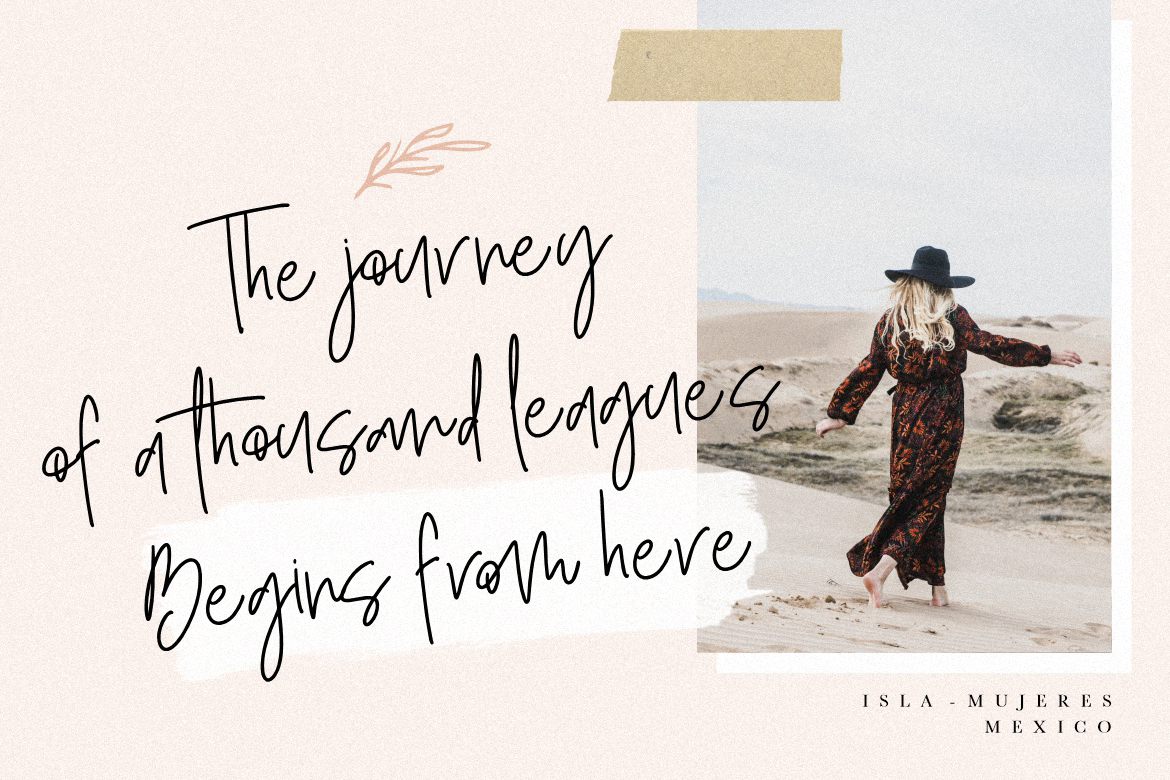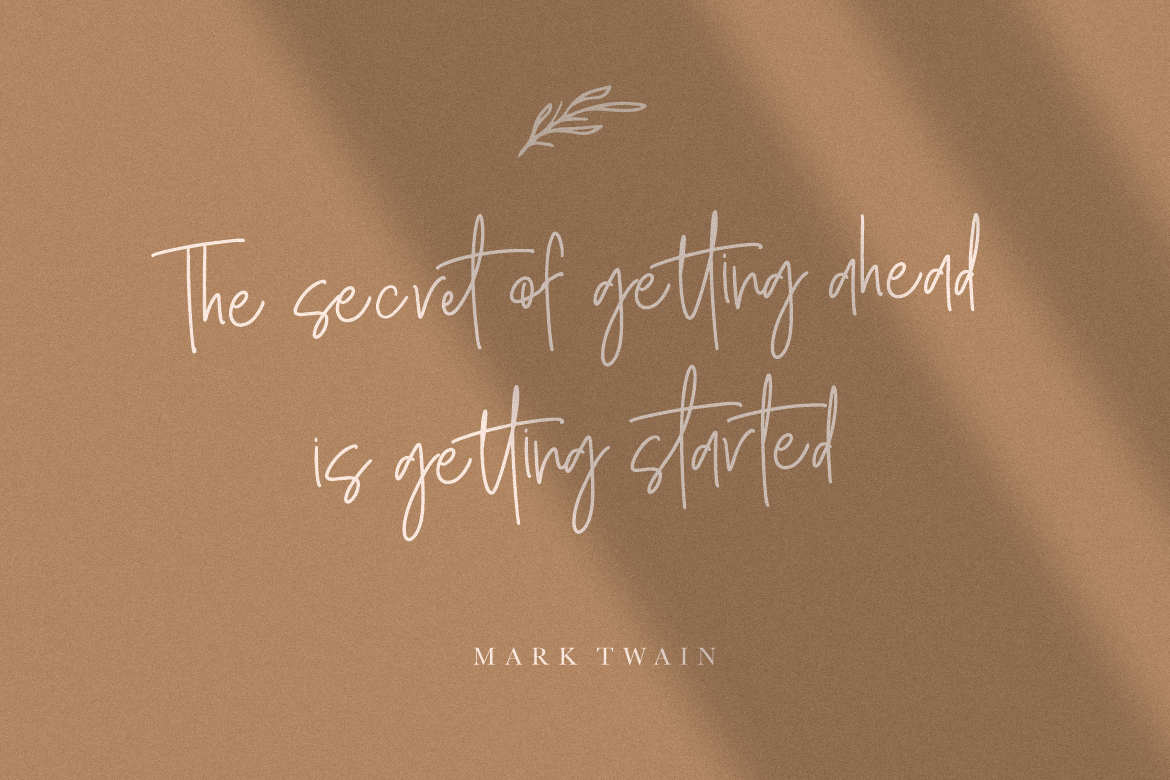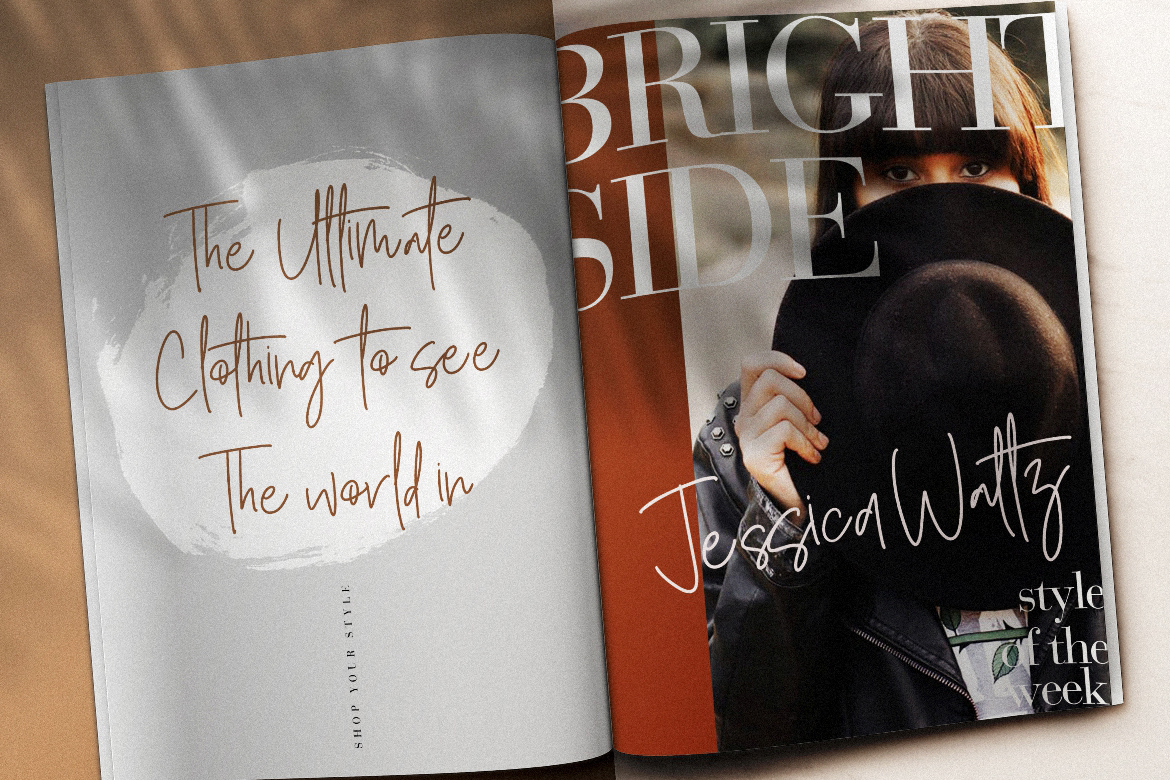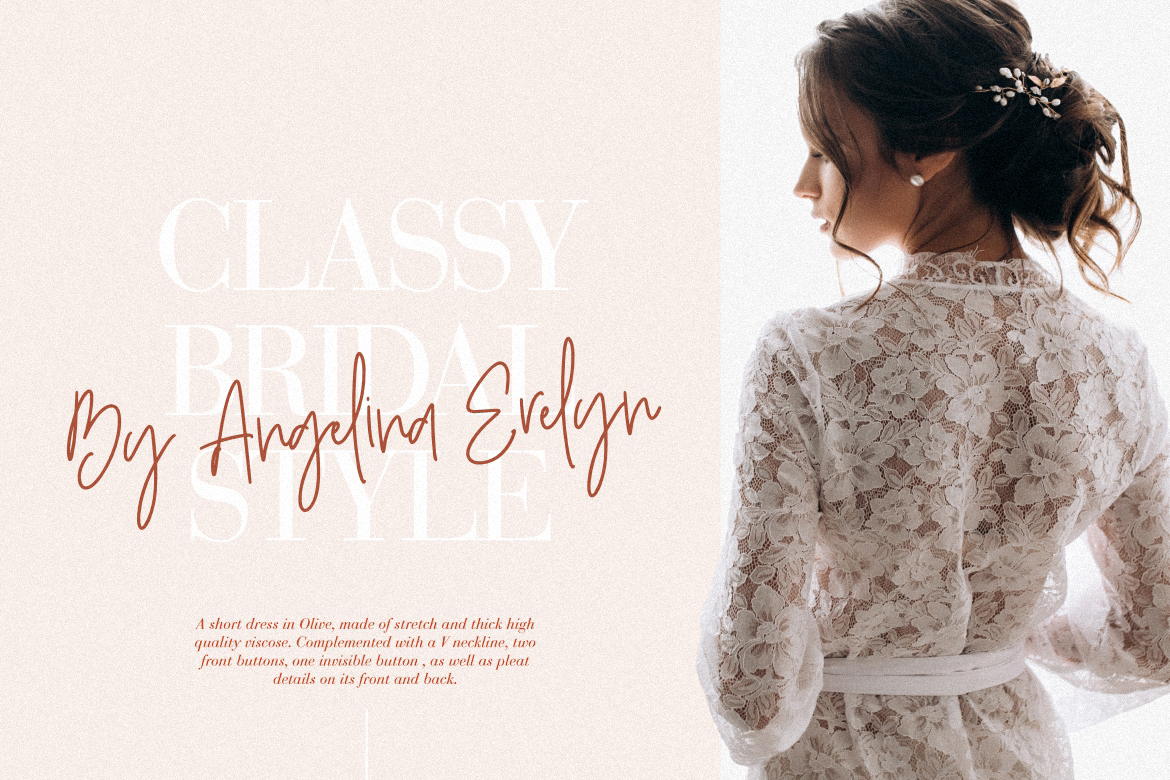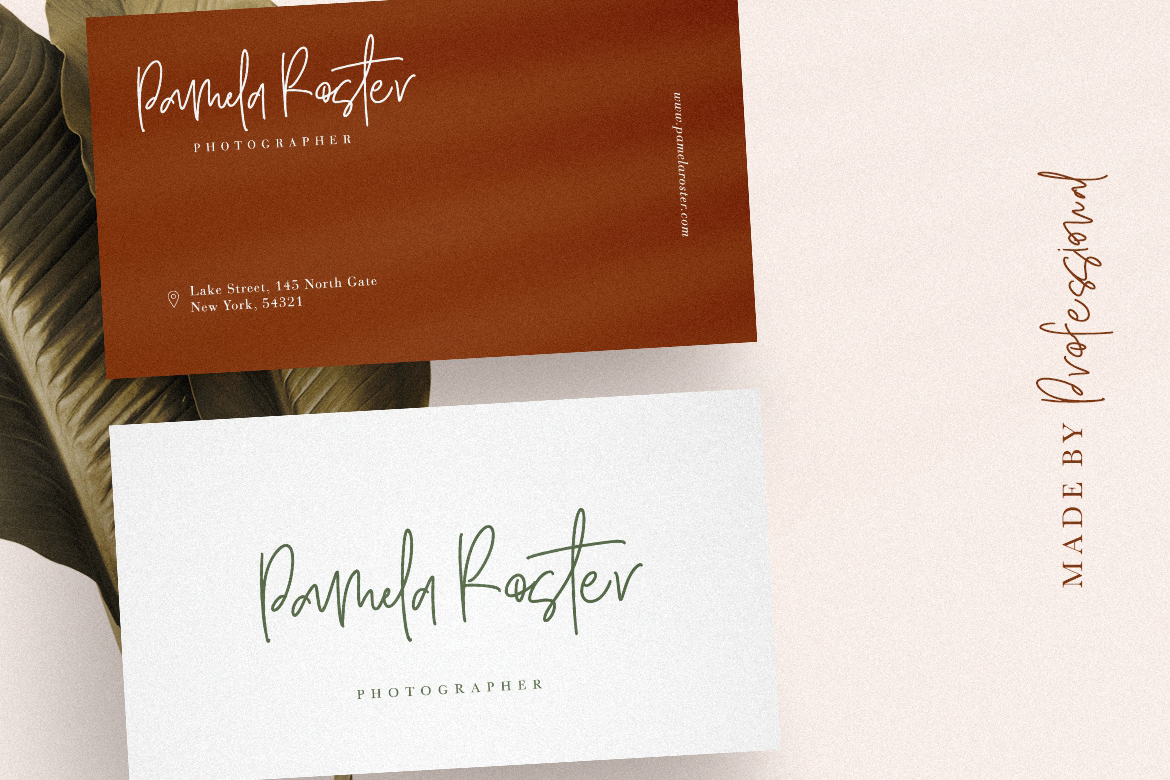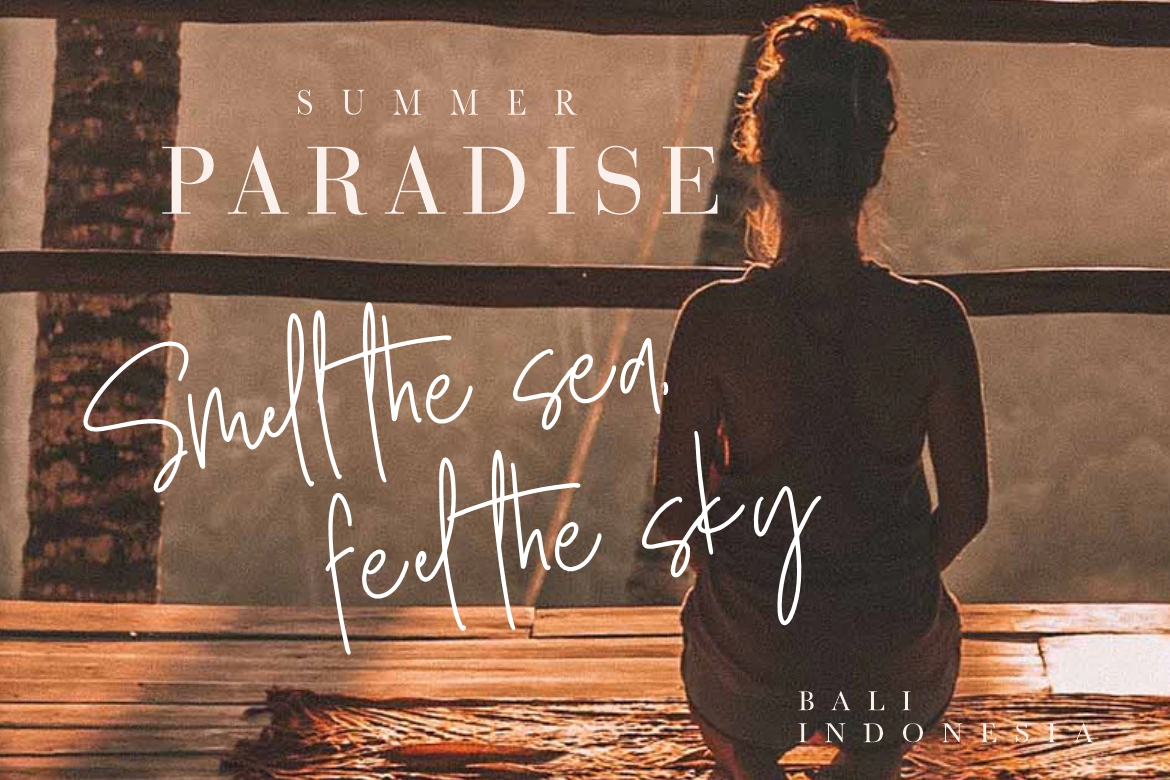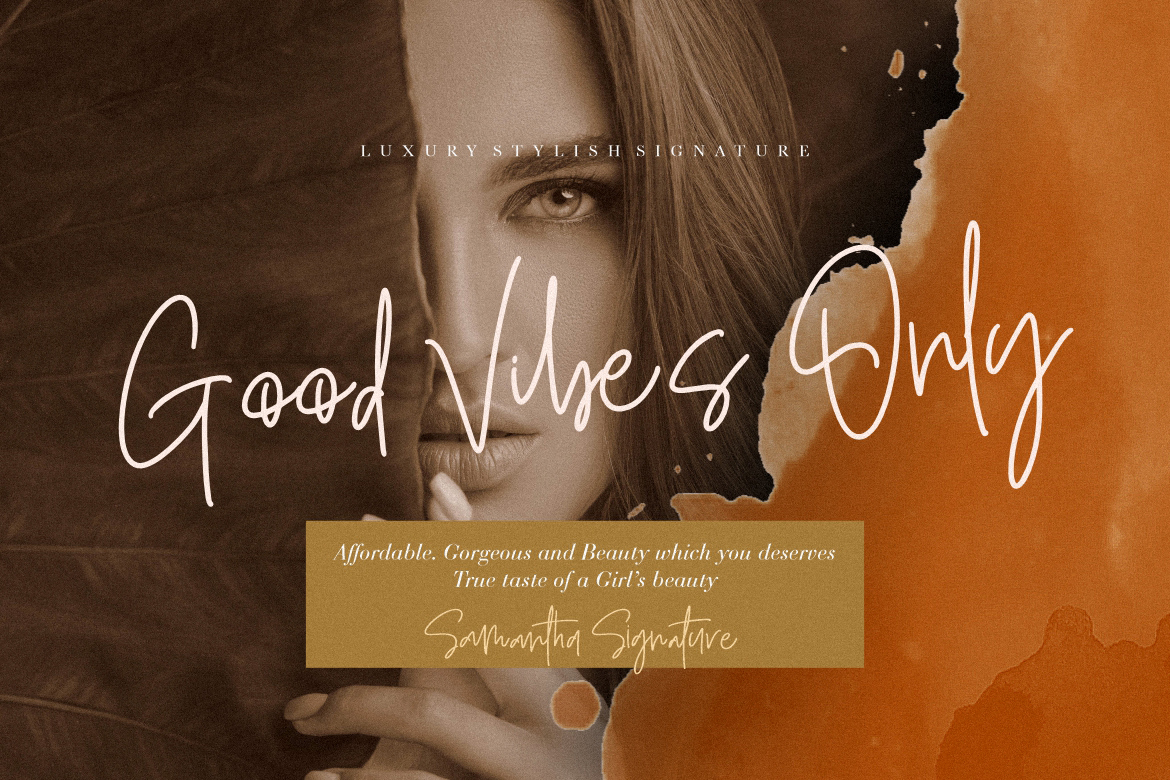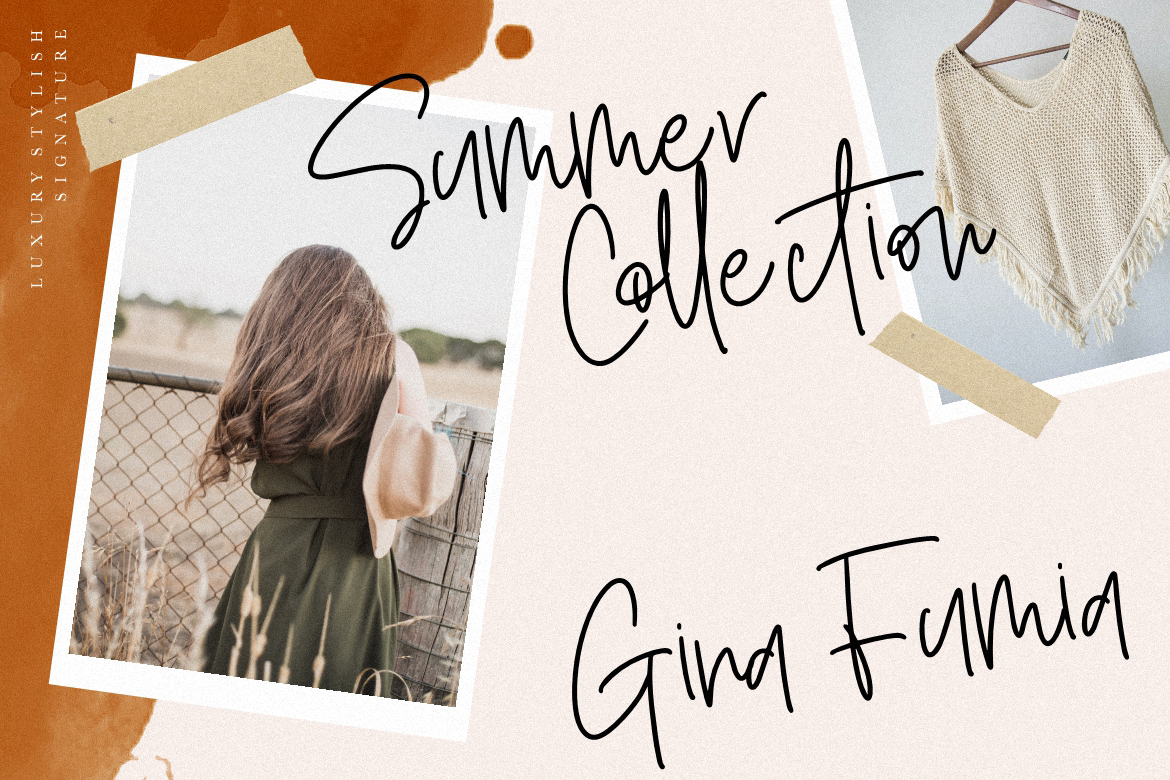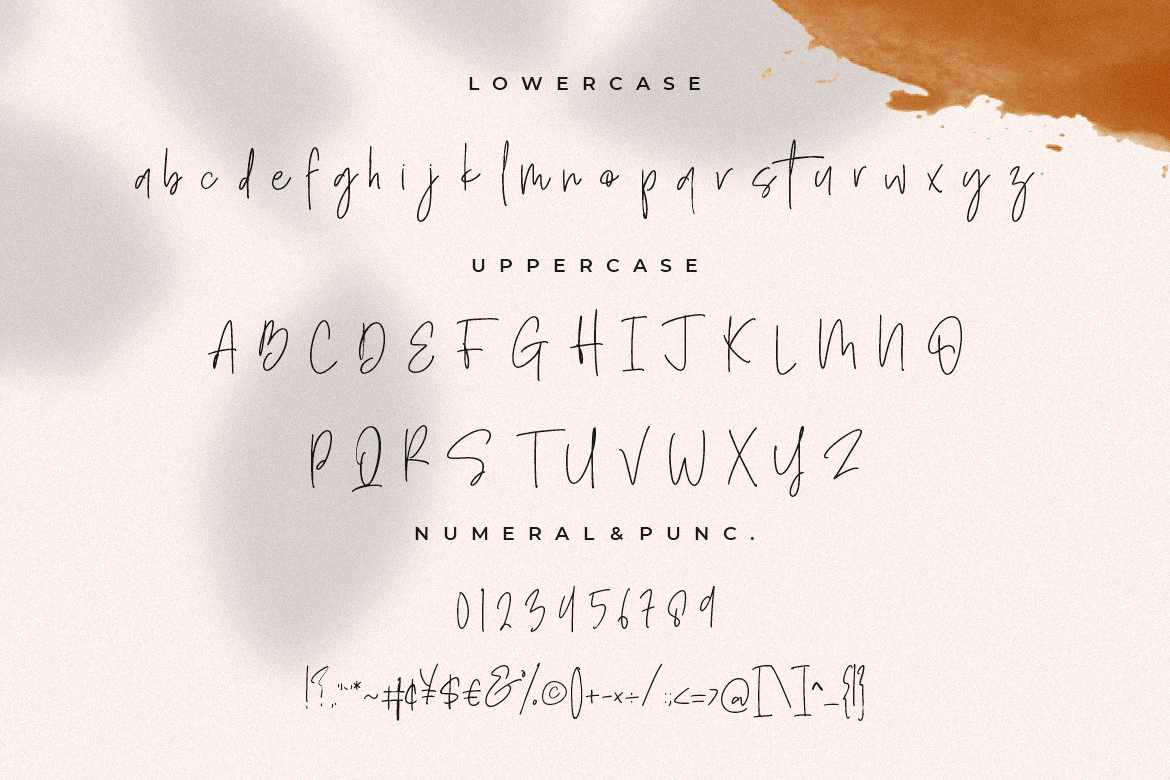
Samantha Signature Business Font
Introducing Samantha Luxury Signature – A fashionable signature-style script make looks elegant, classy and touch of luxury and stylish. The font is perfect for for movie title, logo, blogging, brand identity, book title, social media, branding, wedding invites, cards or simply use it in your next design project and suitable to use for many occasion.